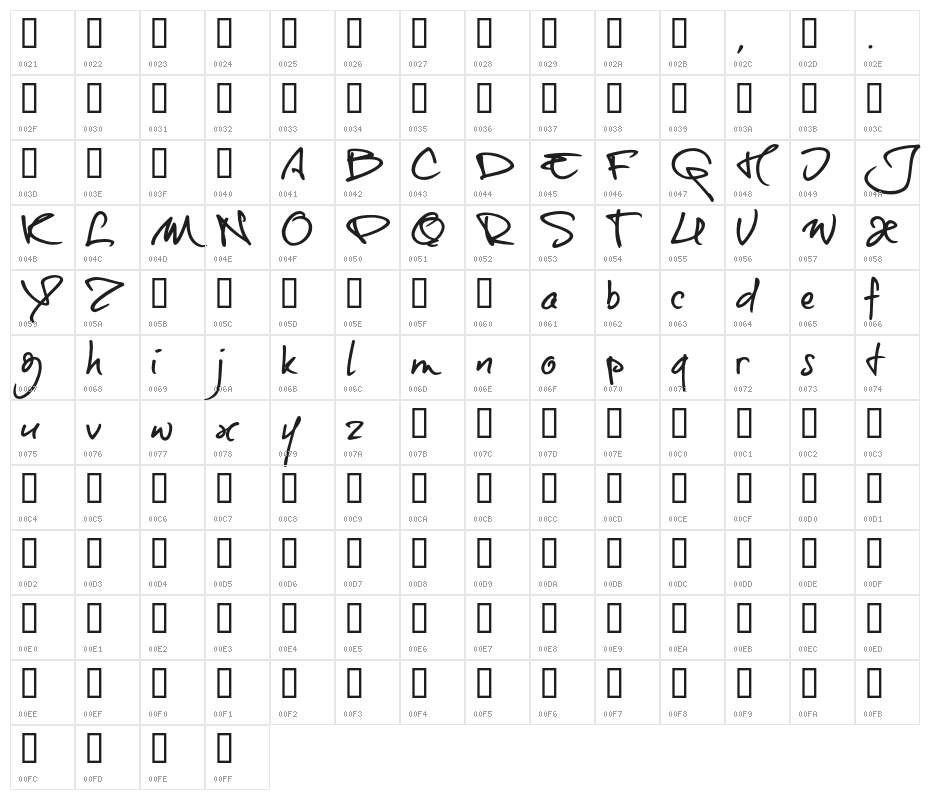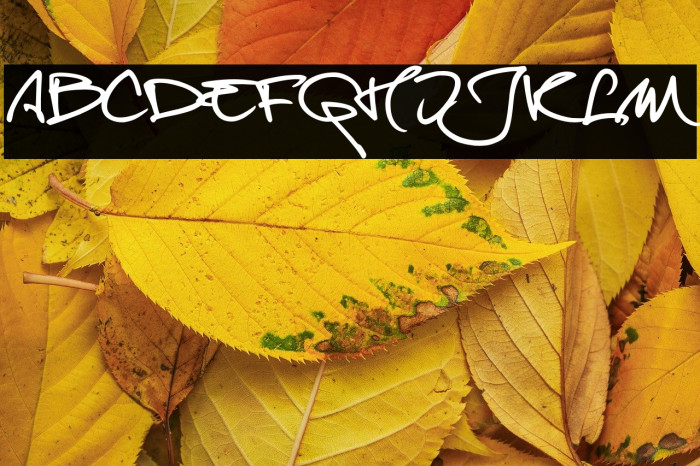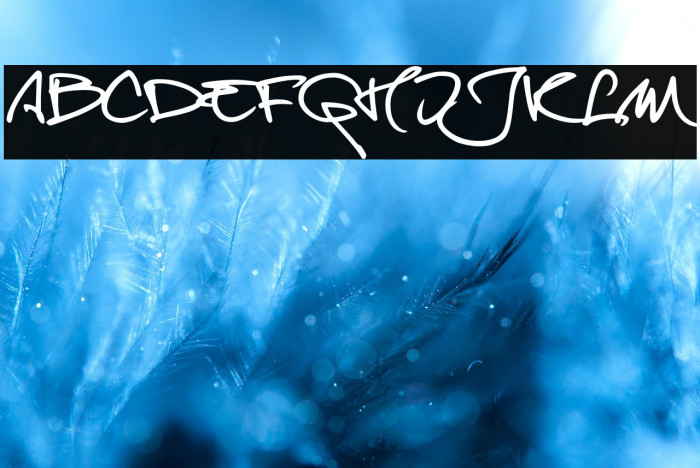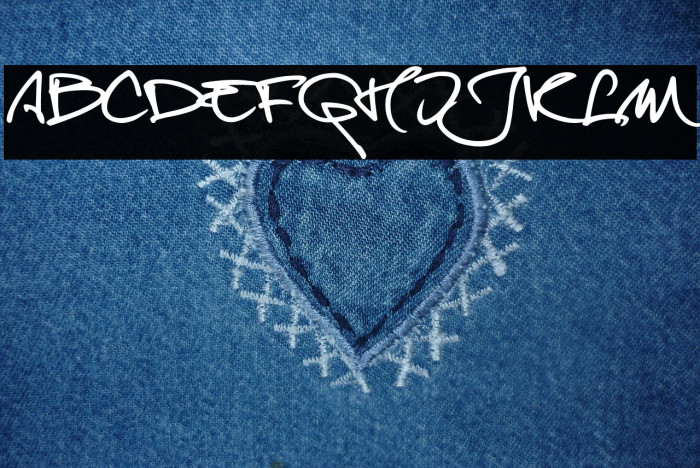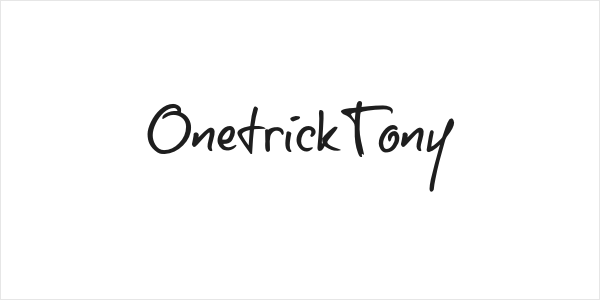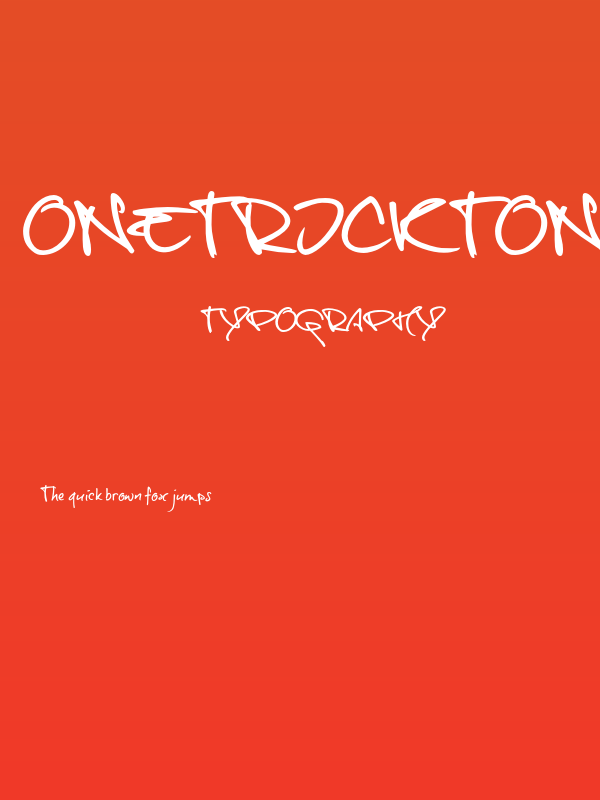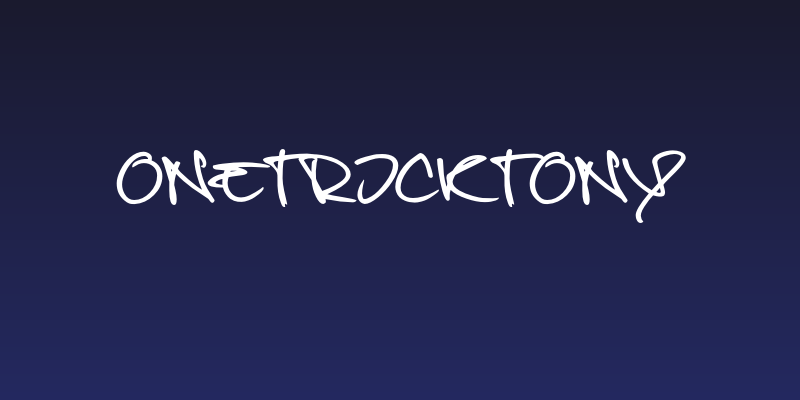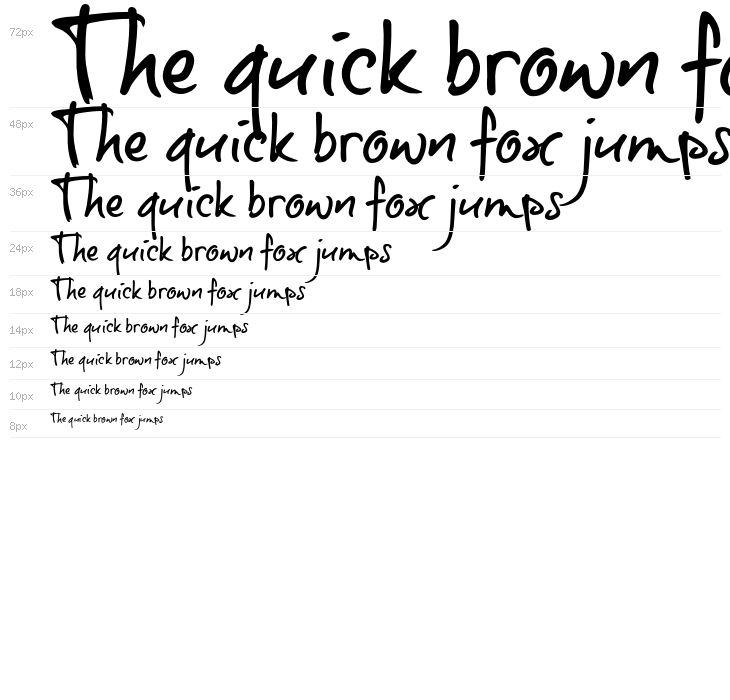
OnetrickTony Font
OnetrickTony Description
This font features a dynamic and expressive handwritten style, characterized by its fluid and organic strokes. The uppercase letters exhibit a playful and energetic flair, with varying line thickness that adds a sense of movement and spontaneity. The lowercase letters maintain this lively aesthetic, with some characters displaying unique loops and curves that enhance the font's personality. The numbers and special characters follow the same handwritten theme, ensuring consistency throughout. This font's informal and artistic nature makes it ideal for creative projects that require a personal touch.
| Proposed Projects | Ideal for greeting cards, personal branding, artistic posters, and creative invitations. |